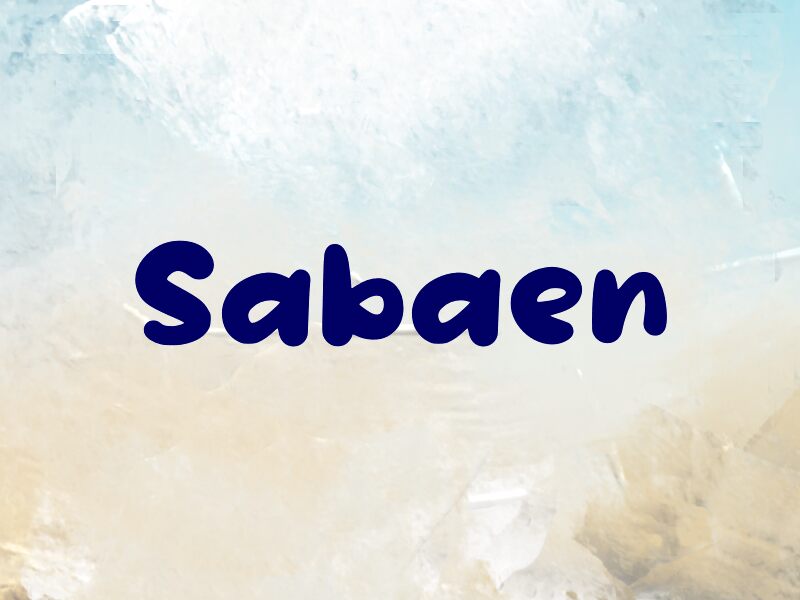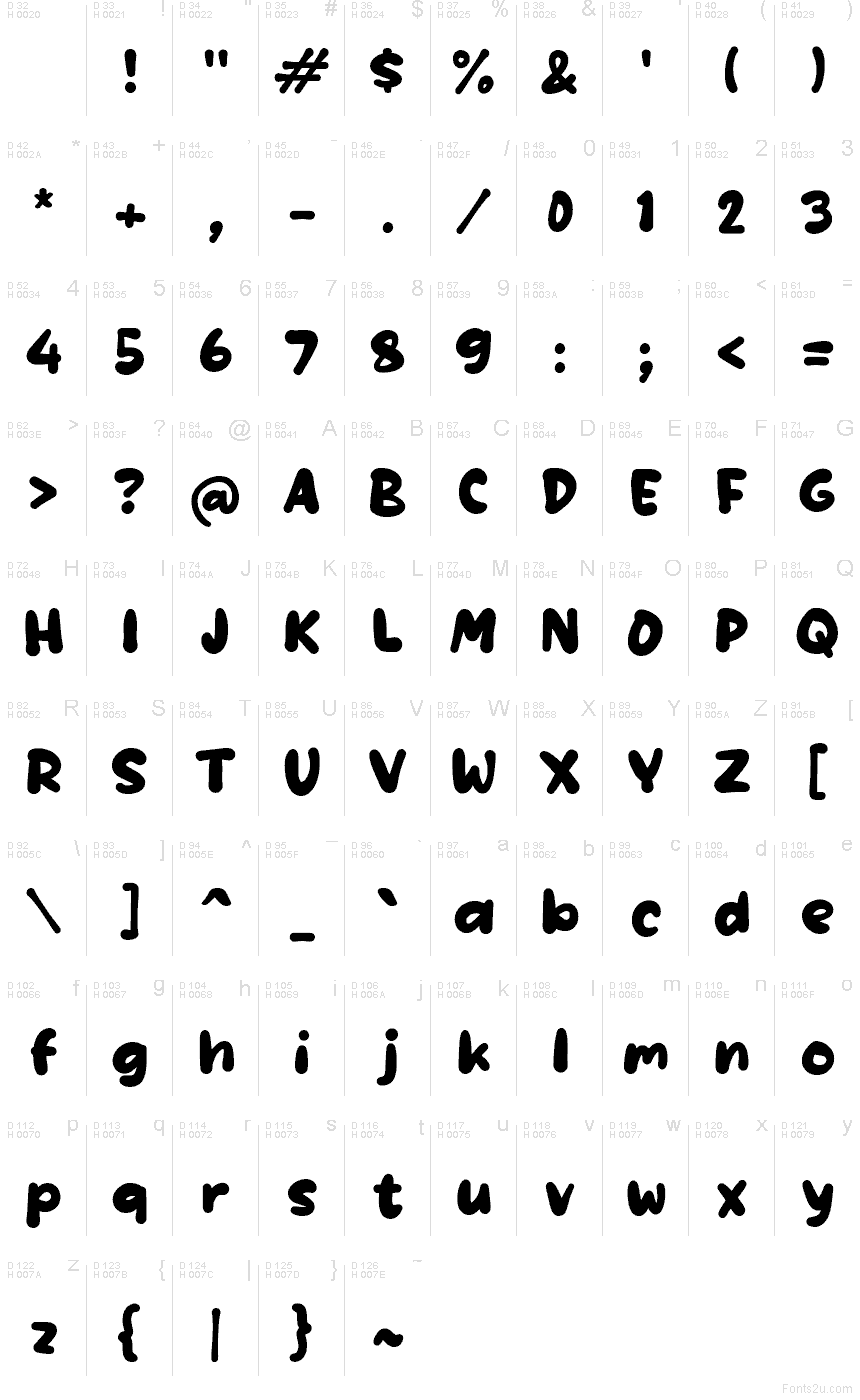
Sabaen
Sabaen font by wep is a free cartoon display typeface with big, inky curves and a soft, hand-drawn bounce. Each letter feels plump and friendly, like it’s been shaped out of marker strokes or modeling clay, giving your words a warm, approachable energy. The tight rhythm and rounded shapes pull the eye along in a smooth, playful flow that’s easy to read at a glance.
Using Sabaen, your designs instantly pick up a kid-safe, upbeat tone that works beautifully for children’s book covers, birthday invitations, toy packaging, school posters, game titles, and YouTube thumbnails. This free font shines at larger sizes where its chunky silhouettes can really pop; pair it with a simple sans serif for smaller supporting text to keep layouts clear and fun.